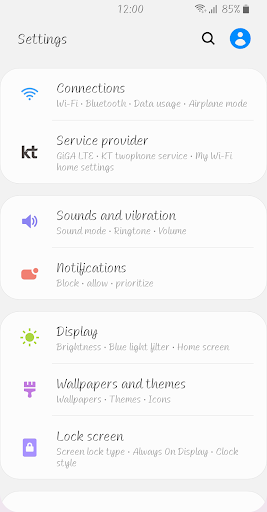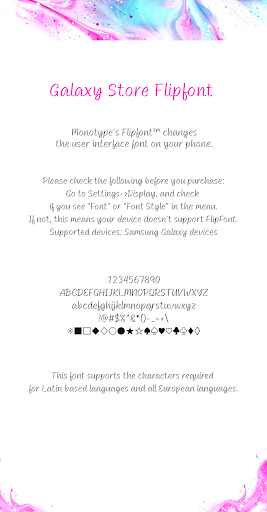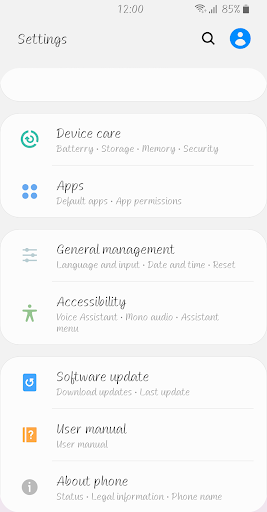
FineEuphoria
This font is a script font with a happy vibe.
You can see the bold strokes and smooth movement of the curves in the pen writing.
Natural and lively expressions are enough to convey a sense of euphoria.